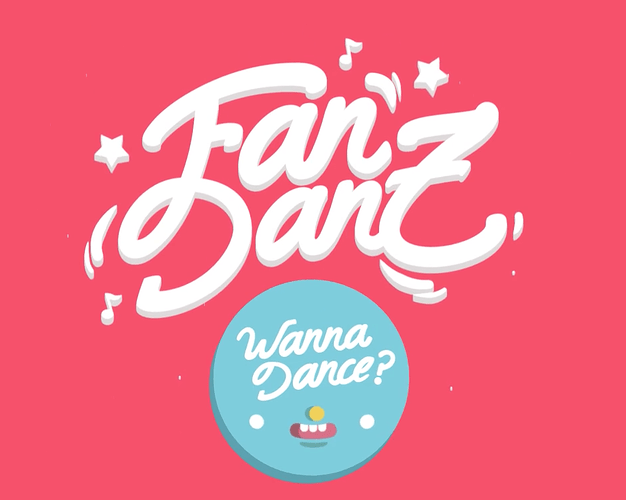
Fan Danz hand written font
It could be a handwritten custom font, so I f any could suggest a similar one will be appreciated. Thank you :slight_smile: